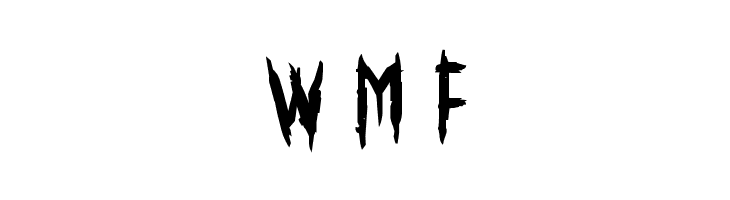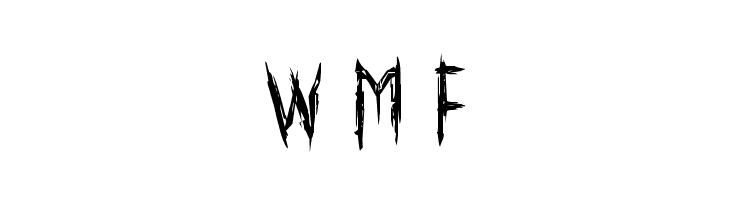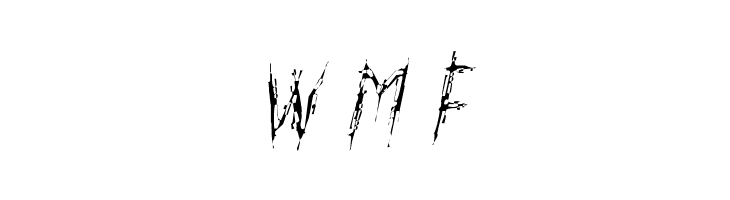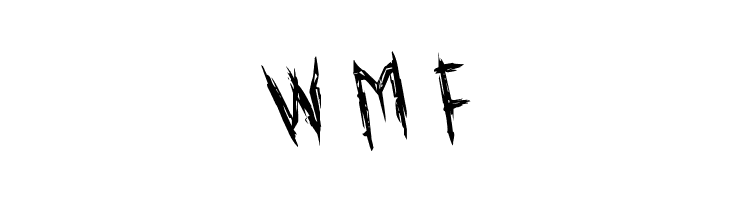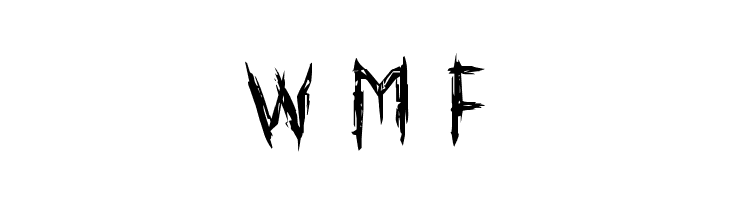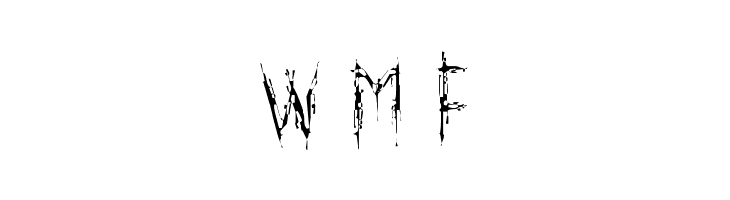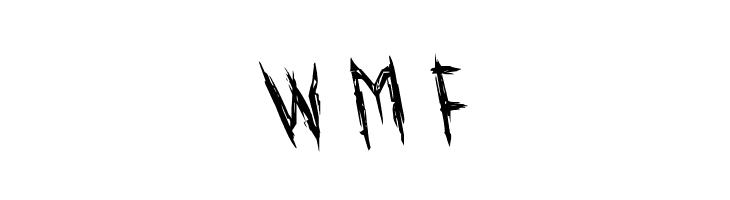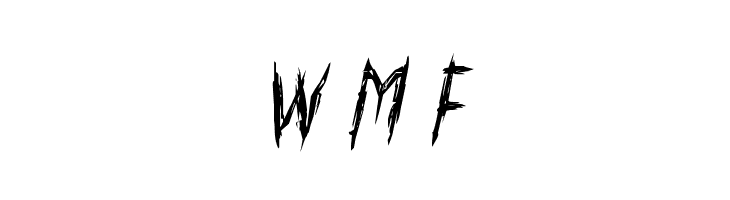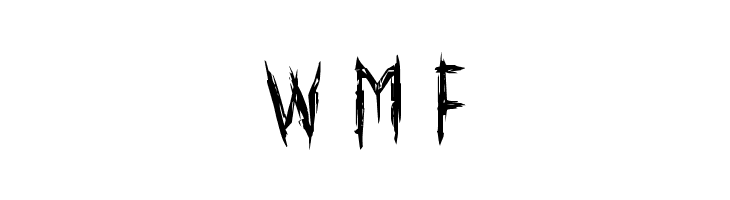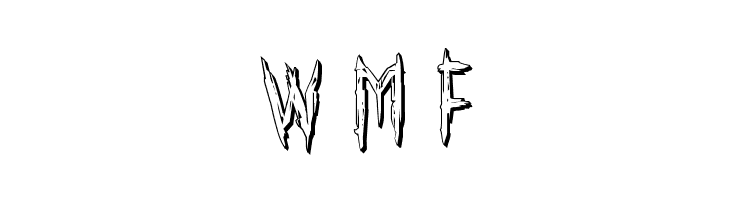
Horroroid 3D Font
Font by Iconian Fonts
A bold, 3D font with a jagged, horror-inspired design.
Horroroid Bold Font
Font by Iconian Fonts
A bold, jagged font with a horror-inspired aesthetic.
Horroroid Font
Font by Iconian Fonts
A jagged, distressed font ideal for horror themes.
Horroroid Staggered Font
Font by Iconian Fonts
A jagged, horror-themed font with sharp, irregular edges.
Horroroid Bold Italic Font
Font by Iconian Fonts
A bold, italicized font with sharp, jagged edges ideal for horror themes.
Horroroid Condensed Font
Font by Iconian Fonts
A jagged, horror-themed font with sharp, irregular edges and a condensed style.
Horroroid Italic Font
Font by Iconian Fonts
A jagged, horror-themed font with sharp, distressed edges.
Horroroid Expanded Font
Font by Iconian Fonts
A jagged, distressed font with sharp, angular characters for a horror-themed aesthetic.
Horroroid Condensed Italic Font
Font by Iconian Fonts
A jagged, distressed font with a horror-inspired aesthetic, featuring sharp angles and an italic slant.
Horroroid Rotalic Font
Font by Iconian Fonts
A jagged, horror-themed font with sharp, irregular edges.
Horroroid Rotated Font
Font by Iconian Fonts
A jagged, horror-themed font with sharp, irregular strokes and a distressed texture.
Horroroid Expanded Italic Font
Font by Iconian Fonts
A jagged, horror-themed font with expanded width and italic slant.
Horroroid Leftalic Font
Font by Iconian Fonts
A jagged, horror-themed font with sharp, irregular edges.
Horroroid Light Font
Font by Iconian Fonts